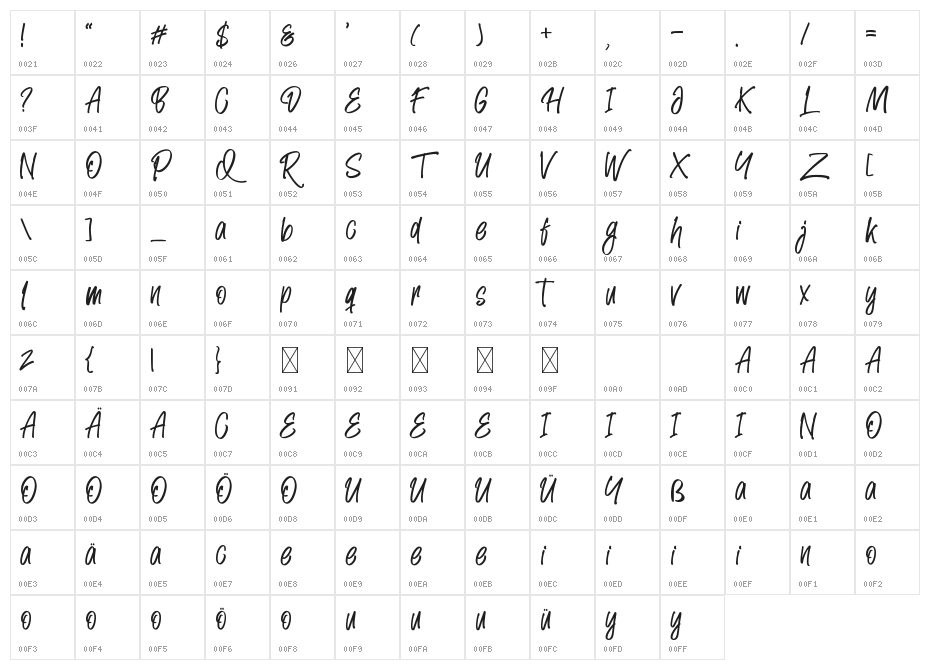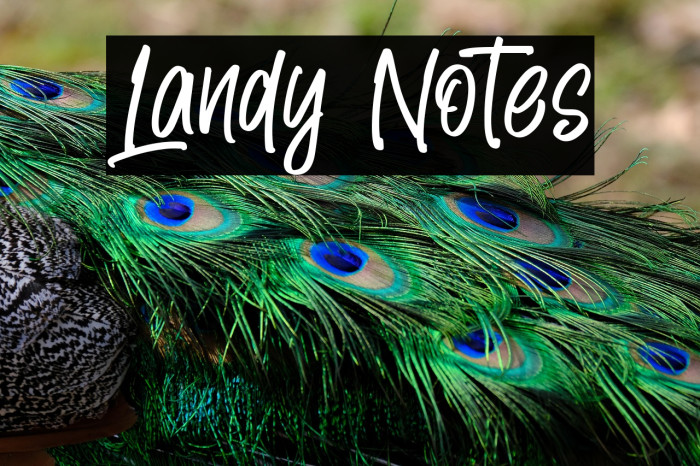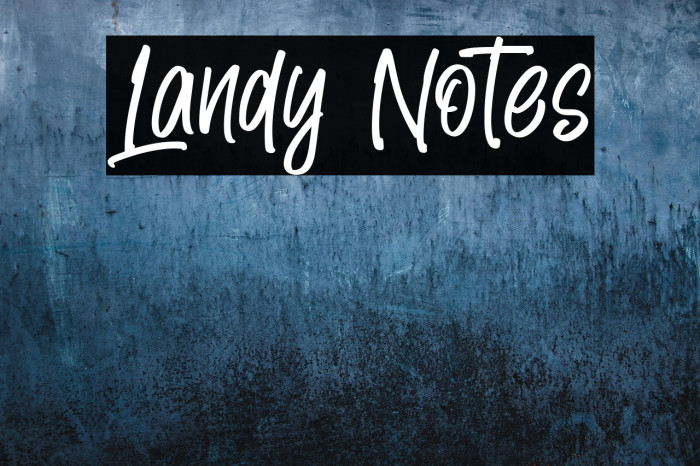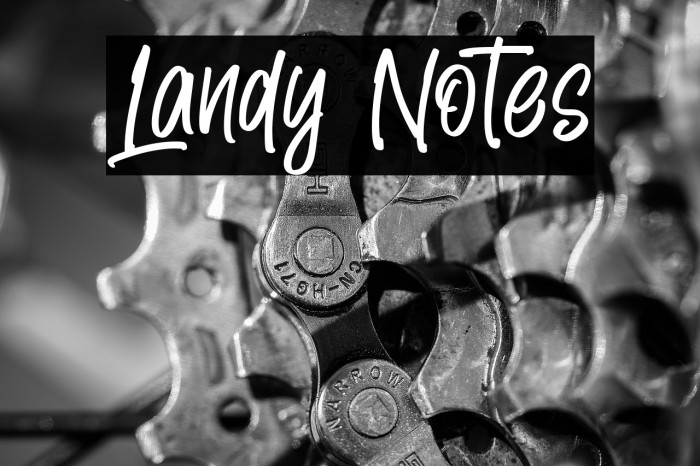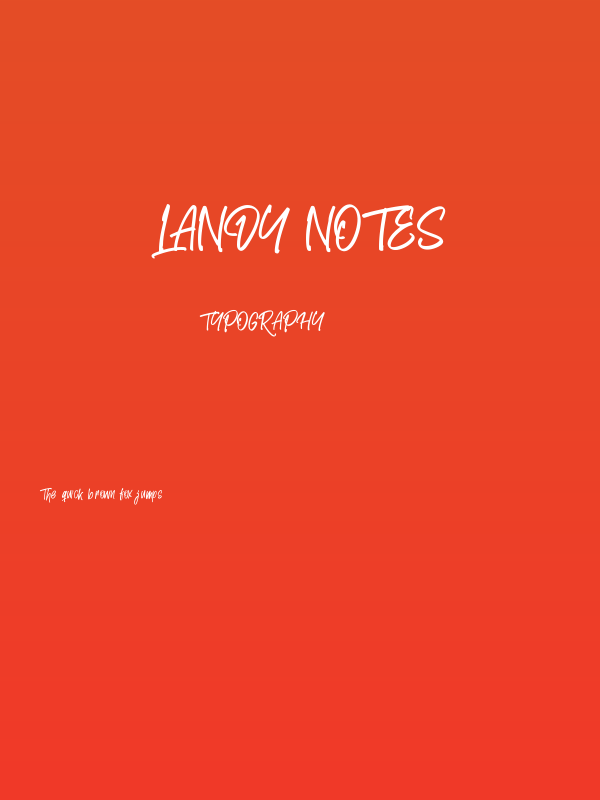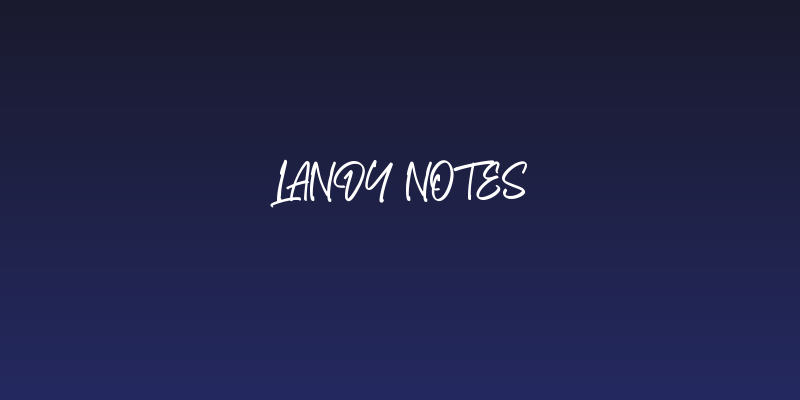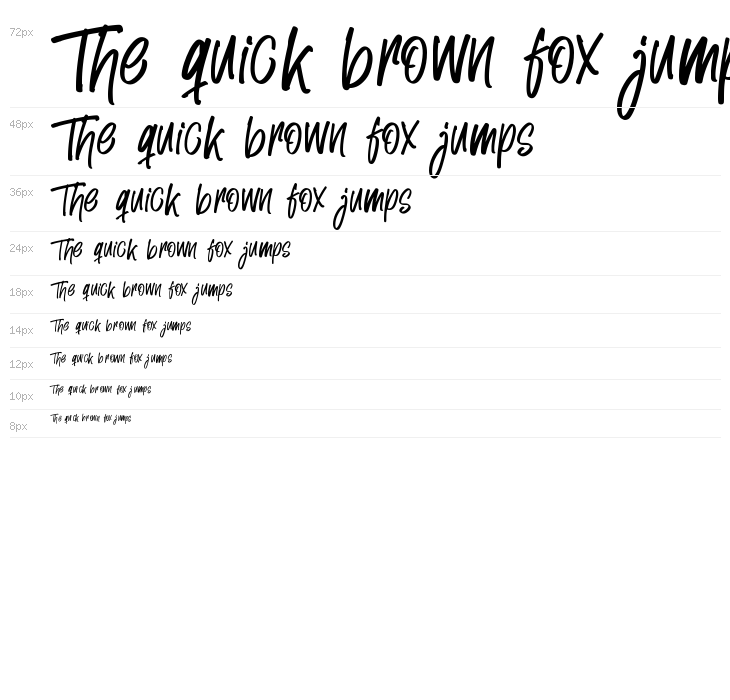
Landy Notes Font
Landy Notes Description
This font exudes a lively and dynamic handwritten style, characterized by its fluid and cursive letterforms. The strokes are bold and expressive, giving each character a sense of movement and personality. The uppercase letters are slightly larger and more pronounced, while the lowercase letters maintain a consistent flow, enhancing readability. The font includes a full set of numerals and a variety of punctuation marks, all maintaining the same energetic style. Its playful yet elegant appearance makes it suitable for creative projects that require a personal touch.
ContrastMedium
Overall StyleDecorative
Use CaseLogos, Headlines, Creative projects
Proposed ProjectsIdeal for greeting cards, invitations, personal branding, and creative posters.